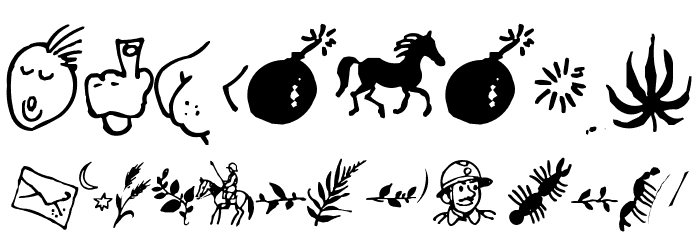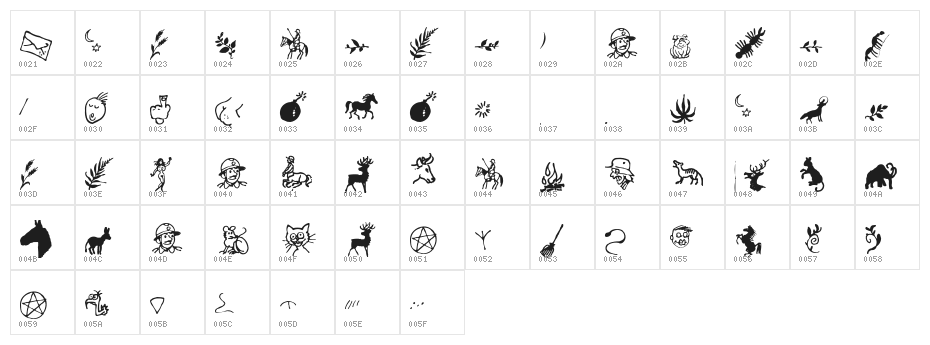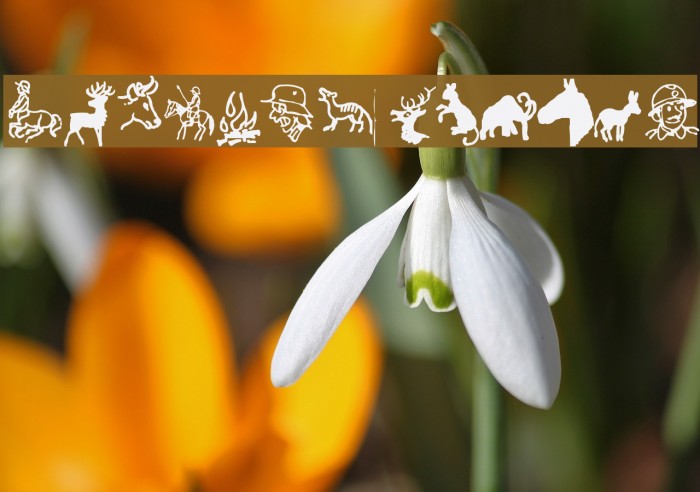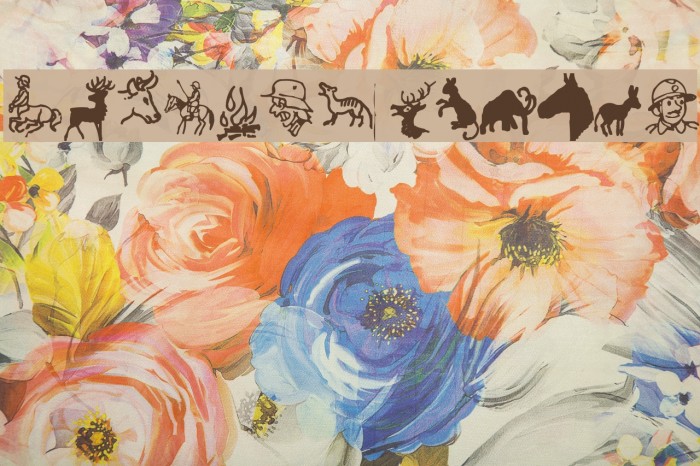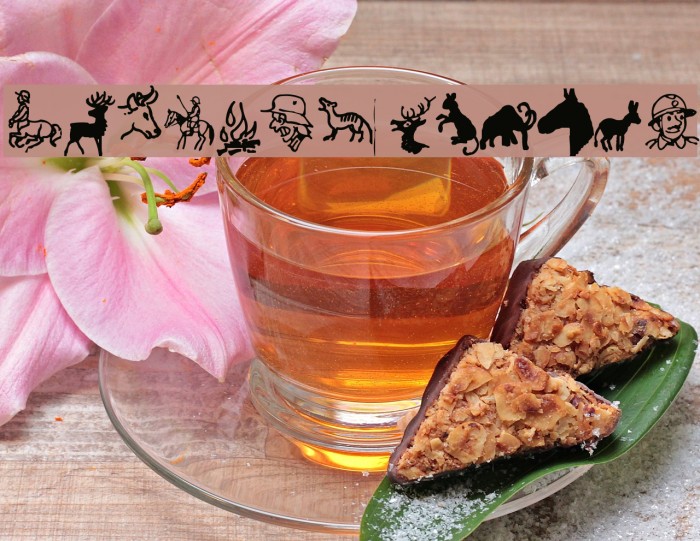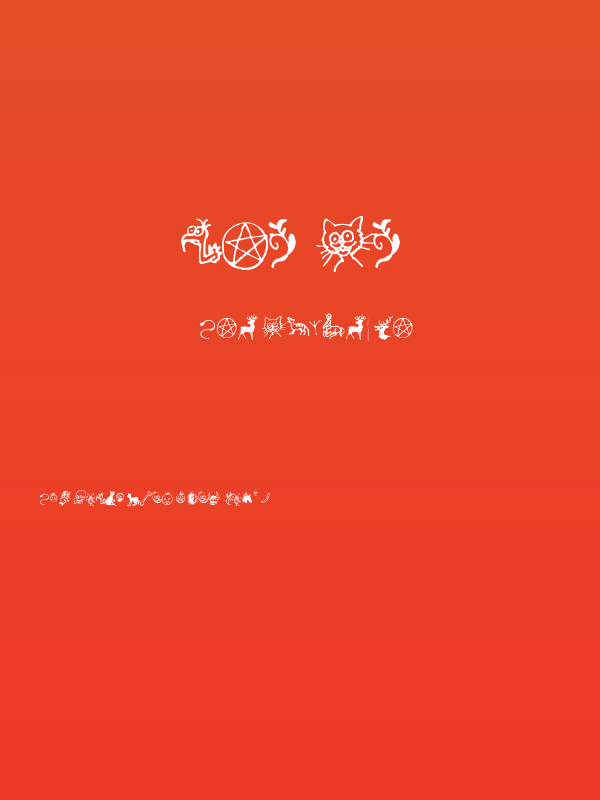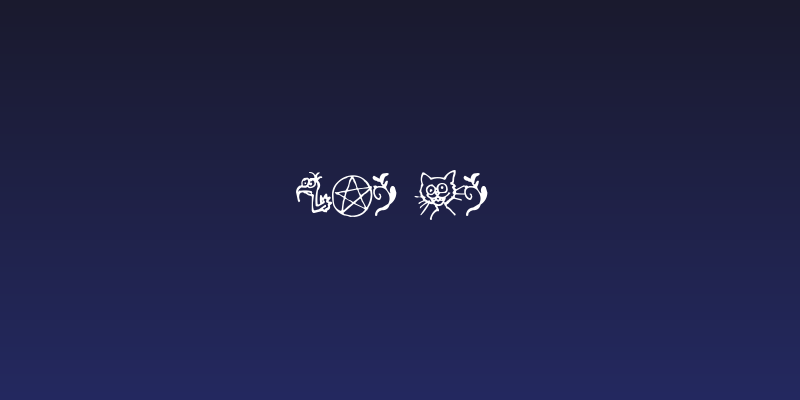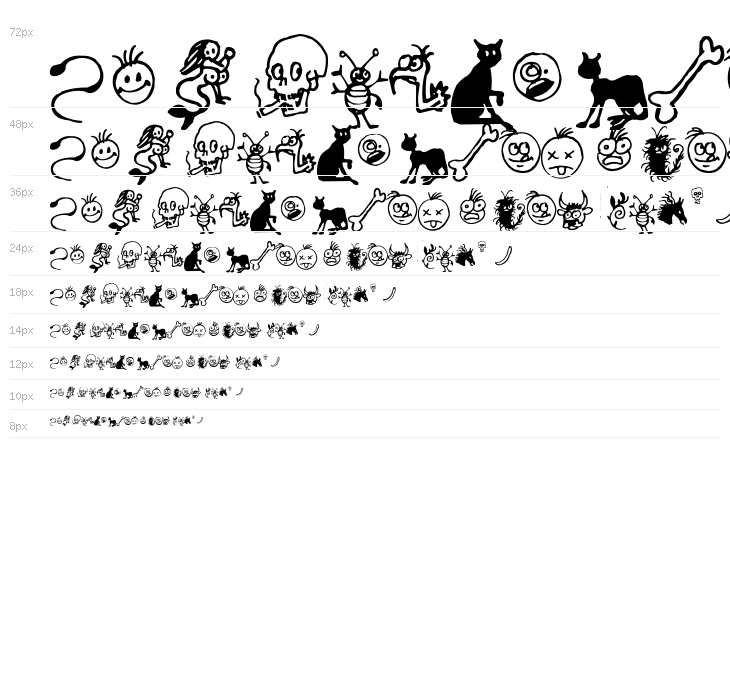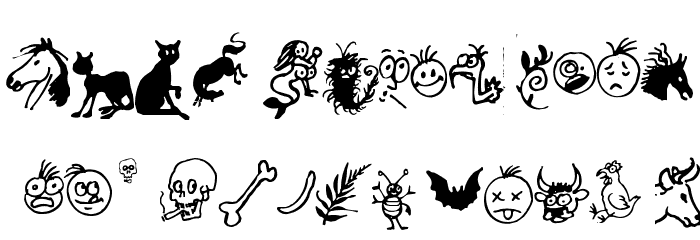
zyxox Font
zyxox Description
A highly decorative and playful dingbat font composed entirely of hand-drawn illustrations, including animals, mythical creatures, objects, and whimsical faces. The glyphs are bold, irregular, and cartoonish, with varying line thickness and a loose, sketchy style.
| Overall Style | Decorative, Playful, Whimsical |
| Use Case | Illustrative elements, Themed graphics, Decorative accents |
| Proposed Projects | ChildrenΓ’β¬β’s books, Halloween party invitations, comic strips, posters, educational materials, themed event flyers. |